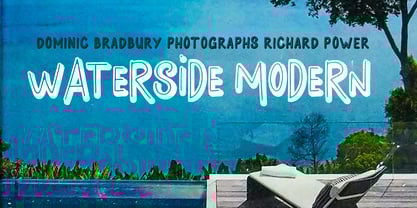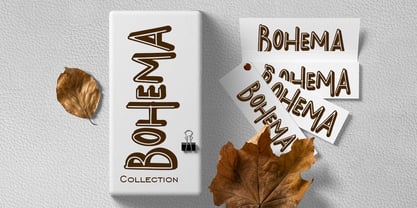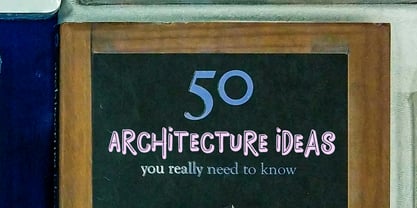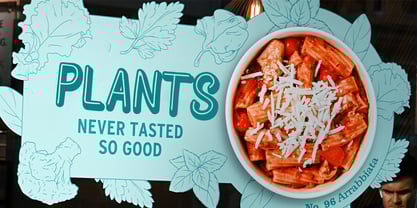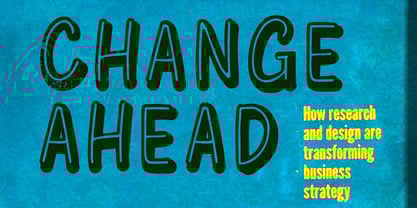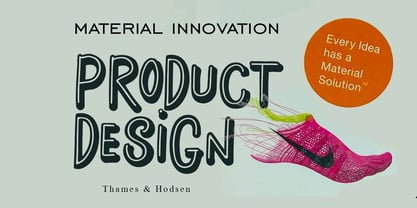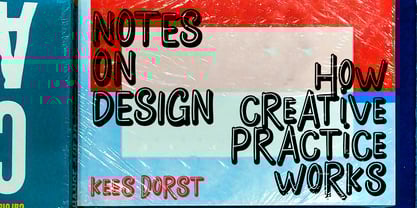
Hendak
by Sulthan Studio
The Hendak Font Family was designed by Nasrullah and published by Sulthan Studio. Hendak contains 1 styles. More about this family
Unleash the power of your imagination with our creatively styled "Decorative Play" font. Sketched with whimsical lines and strokes, this font is the perfect tool for visionaries and dreamers who crave an artistic medium to express their thoughts. It beautifully portrays the frivolity of play and the elegance of decorative design. With our Decorative Play font, you will discover a new realm of creativity, wherein your ideas will find a distinct voice. So, let your projects captivate and entice using our decorative font that teems with both inventiveness and charm.
Designers: Nasrullah
Foundry: Sulthan Studio